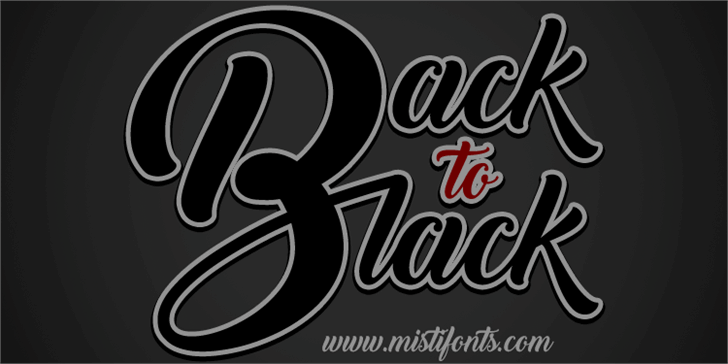
Download and enjoy this free back to black font. Cool typeface to showcase your designs in a modern way. Download this free typeface from the original source of Font Space. This is absolutely fancy font so you can easily make world-class designs.